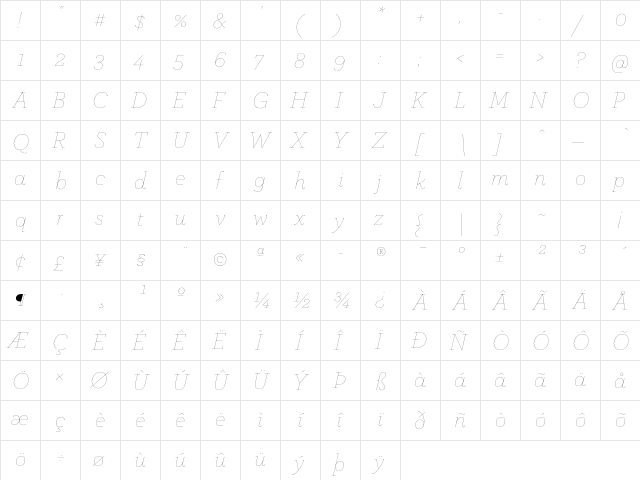
ArcherPro Hairline Italic
Design Context for ArcherPro Typeface
ArcherPro is a composed and adaptable typeface that performs quietly and consistently across a wide range of design contexts. The slanted form adds forward momentum and visual energy. The delicate stroke weight brings airiness and refinement to layouts.
Pro Tip: Use ArcherPro for emphasis, pull quotes, and subheadings where its slanted energy can add rhythm to the layout.